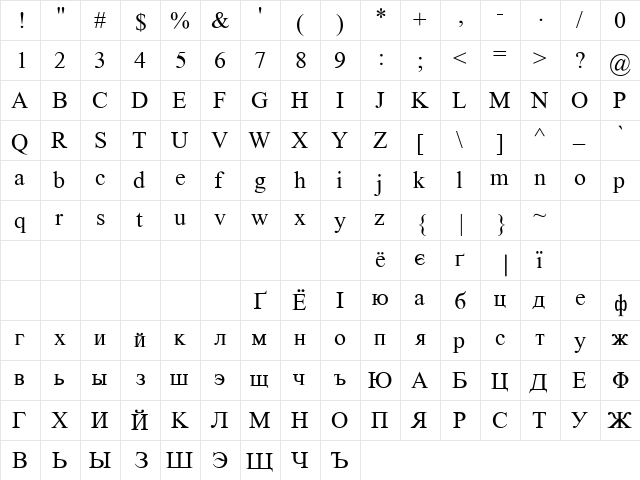
ER Third Roman KOI-8 Normal
Design Context for ER Third Roman KOI-8 Typeface
ER Third Roman KOI-8 offers clean, dependable letterforms without strong stylistic allegiance, making it a practical choice for designers who need flexibility.
Pro Tip: Pair ER Third Roman KOI-8 with a font of contrasting weight or personality to build a more expressive typographic hierarchy.